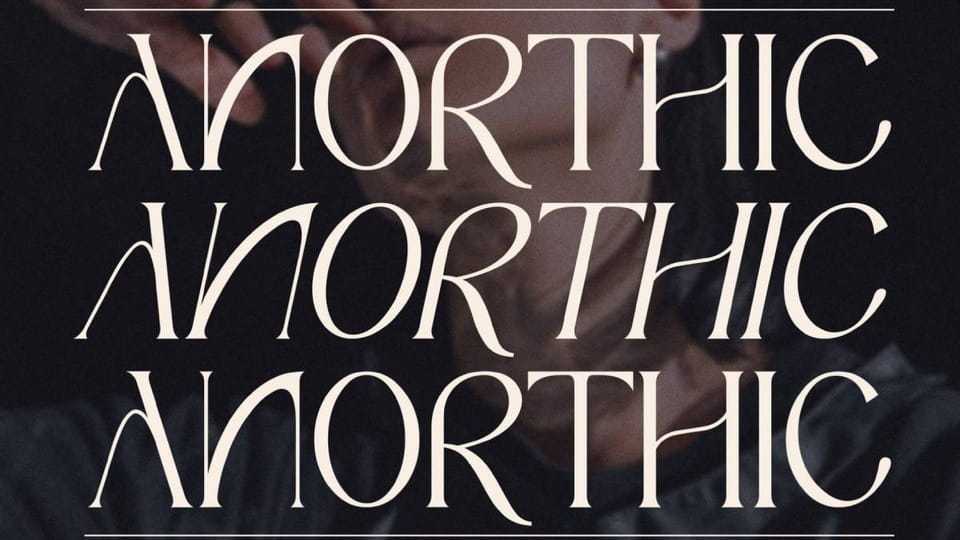
Download Anorthic font, a timeless serif typeface that combines modern elegance and luxury aesthetics. Its refined letterforms and stylish details make it a perfect branding, logo and cosmetic.
Designer: Koplexs Studio